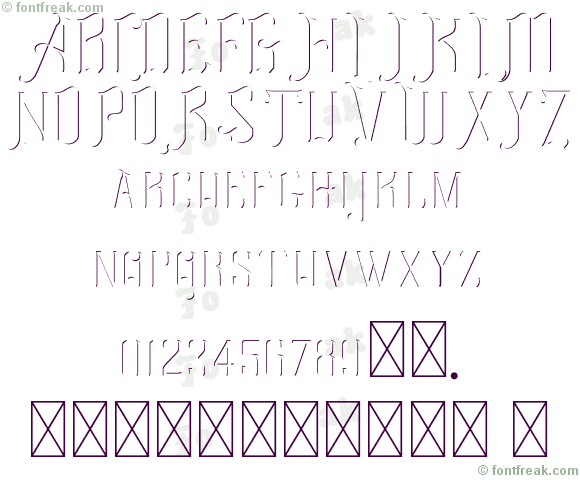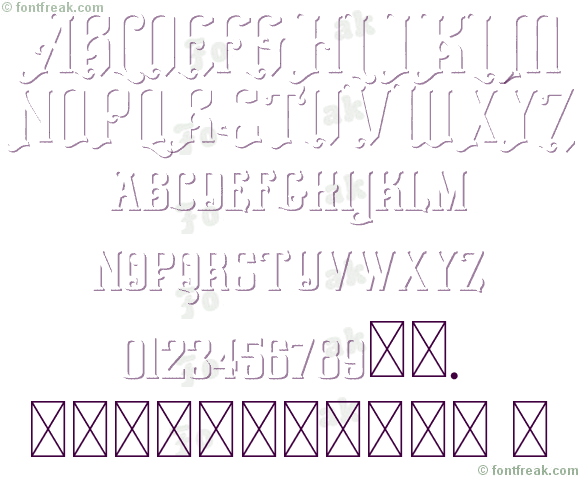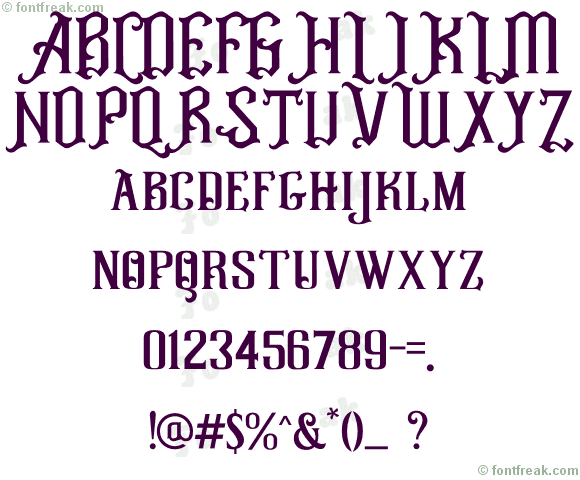
Graphite Striped
Graphite
Graphite Inline
Graphite Striped is a striking display font designed by Burhan Afif in 2019, characterized by its unique inline style that offers a fresh take on typographic design. This decorative font features a series of bold, striped strokes that create a sense of depth and dimension, while its moderate stroke weight ensures that it stands out without overwhelming the viewer. The careful spacing between letters enhances readability, making it suitable for various applications.
The font's playful yet sophisticated aesthetic makes it ideal for a variety of creative projects. It works beautifully for wedding invitations, where its elegant lines can add a touch of class. Additionally, Graphite Striped is perfect for movie posters, capturing attention with its distinctive look and helping to convey themes in a visually engaging way. Restaurant menus can also benefit from this font, as it adds a modern flair that appeals to diners. Moreover, social media graphics and branding materials for small businesses can leverage this font to create a memorable identity that resonates with audiences.
What sets the Graphite Striped font apart is its ability to blend artistic flair with functionality. The inline design not only captures attention but also inspires creativity, making it a valuable asset for anyone looking to elevate their visual communication. Whether you're creating a whimsical invitation or a bold advertisement, this font brings a unique voice to your work, making it a standout choice in the world of typography.